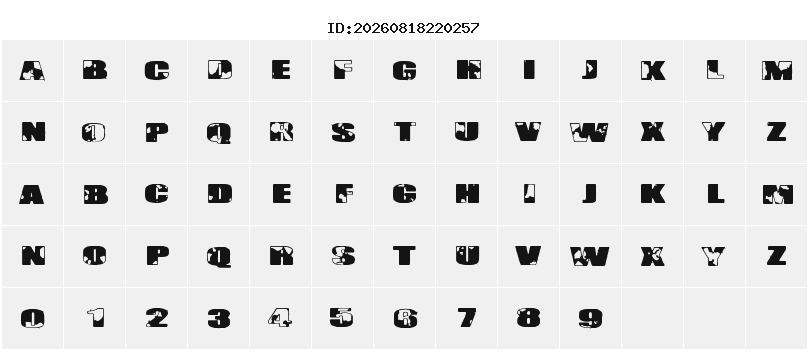
Singapore.ttf is a modern, elegant sans-serif font designed for ultimate readability and visual harmony. Perfect for branding, headlines, web design, and print materials.